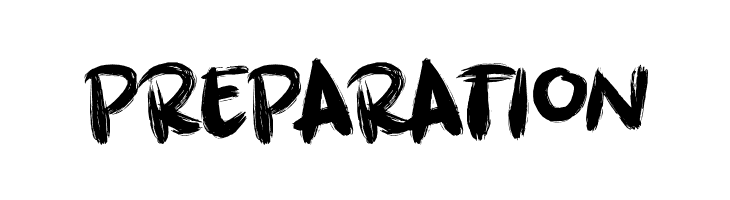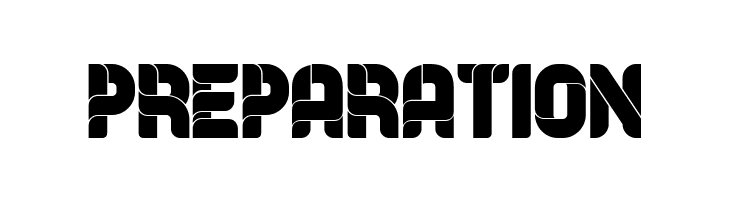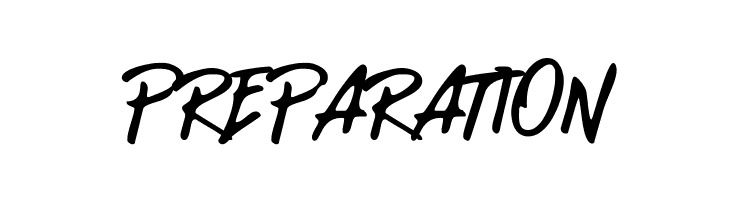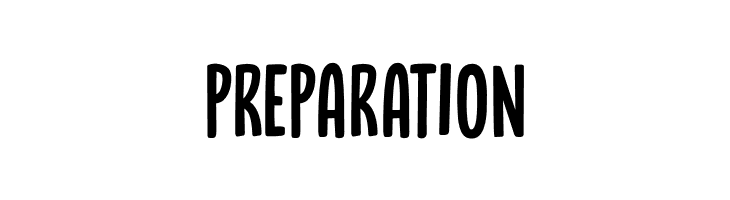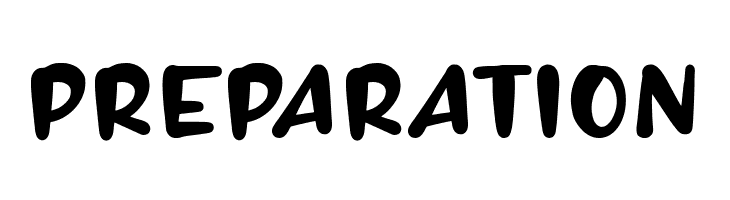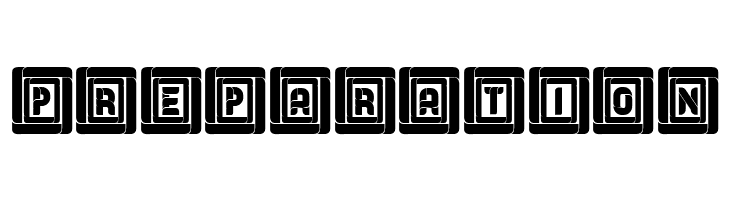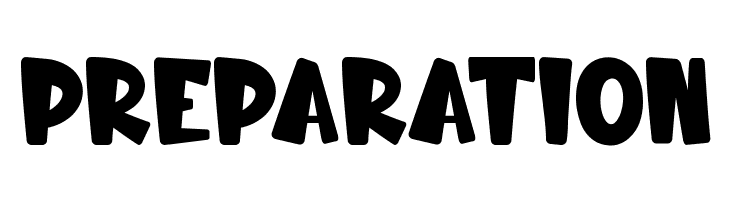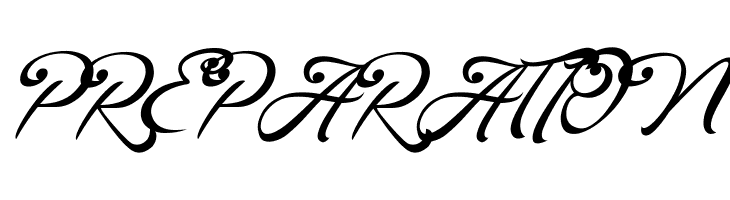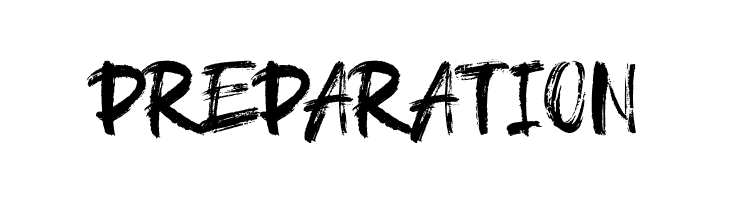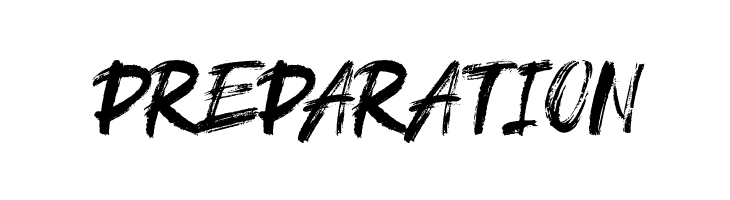
A bold, geometric font with angular lines and cut-out sections.
A bold, expressive script font with playful, interconnected strokes.
An elegant, cursive font with a signature-like style and high contrast strokes.
A bold, rounded font with a playful and modern style.
A bold, handwritten font with a lively and dynamic style.
A bold, decorative font with a playful, chunky style.
A bold, geometric font with block-like characters and minimal contrast.
A bold, playful handwritten font with rounded, irregular letterforms.
A bold, playful font with rounded, whimsical characters.
A graceful, flowing script font with elegant, continuous strokes.
A bold, dynamic font with a slight slant and strong visual impact.
A playful, decorative font with a doodle-like pattern inside each character.
A bold, blocky font with characters enclosed in square frames, evoking a vintage or industrial aesthetic.
A bold, geometric font with strong, angular shapes and high visual impact.
A bold, geometric font with a modern, segmented design.
An elegant script font with flowing, cursive style and intricate swashes.
A bold, playful font with thick, rounded strokes and whimsical curves.
A dynamic brushstroke-inspired font with an artistic and textured appearance.
A bold, brush-style font with dynamic and expressive strokes.
A playful, brush-style font with bold, rounded characters.
A lively, cursive font with expressive, flowing strokes and elegant curves.
A bold, brush-style font with an artistic and hand-drawn appearance.
A bold, expressive brush-style font with dynamic, hand-painted strokes.
A bold, brush-style font with dynamic, textured strokes.
A bold, brushstroke-style font with an energetic and expressive appearance.
A playful brush script font with fluid, dynamic strokes and a hand-drawn quality.